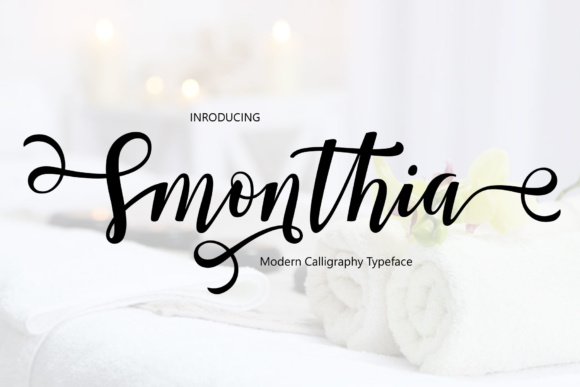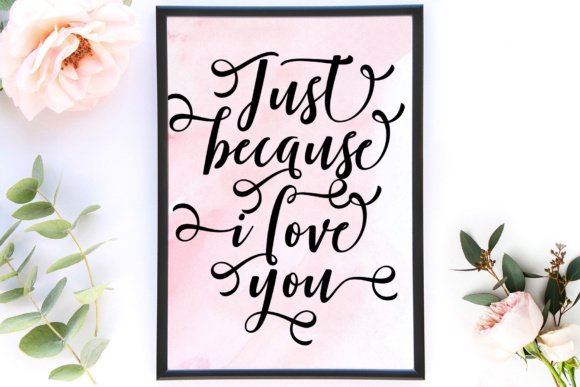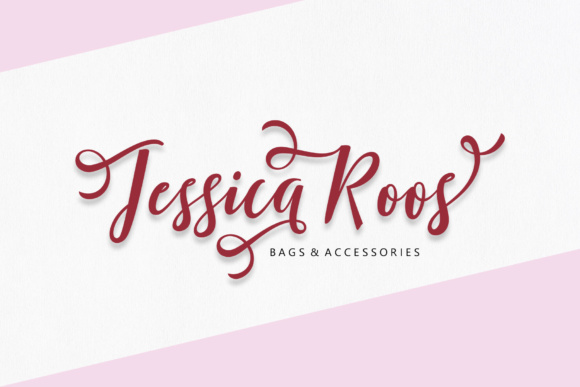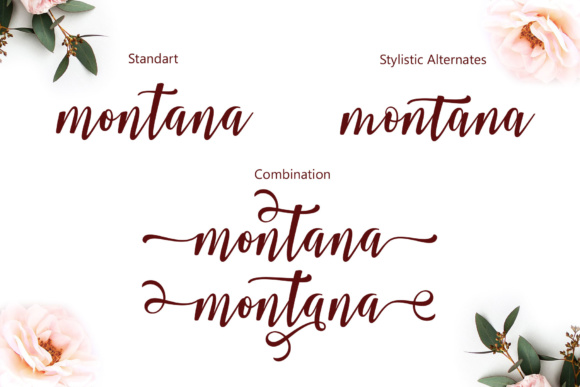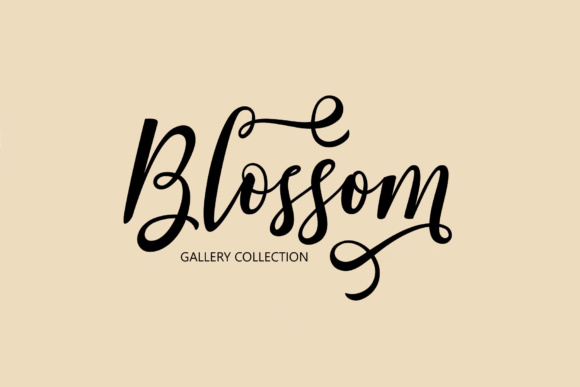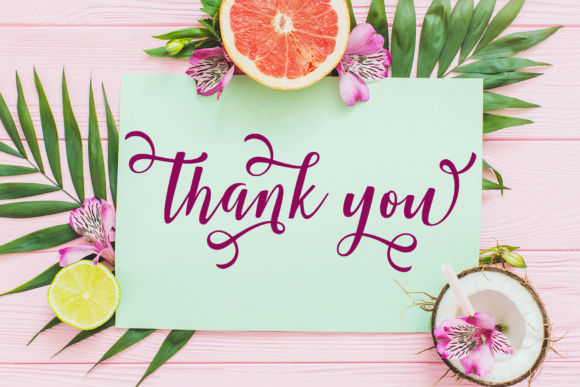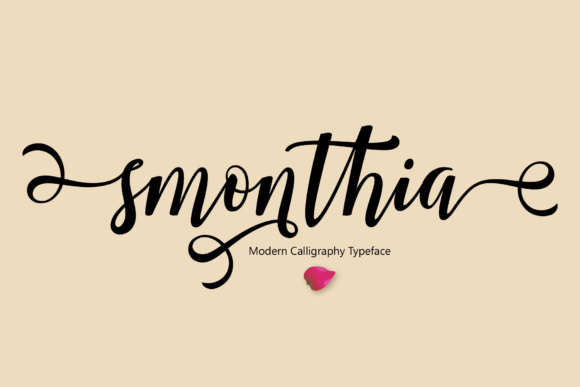
Smonthia Script Font
About Smonthia Script Font
Smonthia Script offers beautiful typography harmony for a variety of design projects such as logos and branding’s, wedding designs, social media posts, advertising, product designs and much more!
It includes lowercase and uppercase letters, numbers, punctuation marks, standard ligatures, stylistic alternates, stylistic set, swashes and multiple language support. This Font has PUA unicode (specially coded fonts).